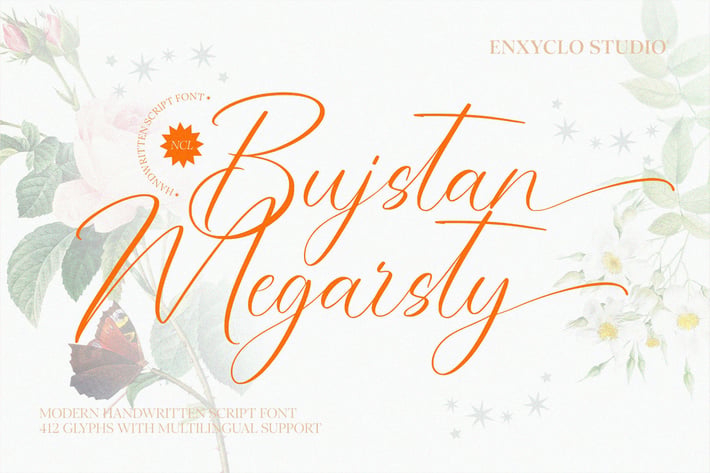
NCL Bujstan Megarsty - Elegant Swash Script Font
NCL Bujstan Megarsty is a modern and elegant handwritten swash script with signature style display font. Masterfully designed to become a true favorite, this font has the potential to bring each of your creative ideas to the highest level! It was purposely crafted to be used in large point sizes, although it doesn’t lose its magic in small point sizes. It is perfect for headline, digital ads, magazines, website, poster, branding, and logos. No matter the topic, this font will be an incredible asset to your fonts’ library, as it has the potential to elevate any creation. With this beautiful font, absolutely you can make your project stand out from the rest.
412 Unique Glyphs
14 Ligature
Stylistic Set 1-2
Numeral, Punctuation & Symbols
* Multilingual Support